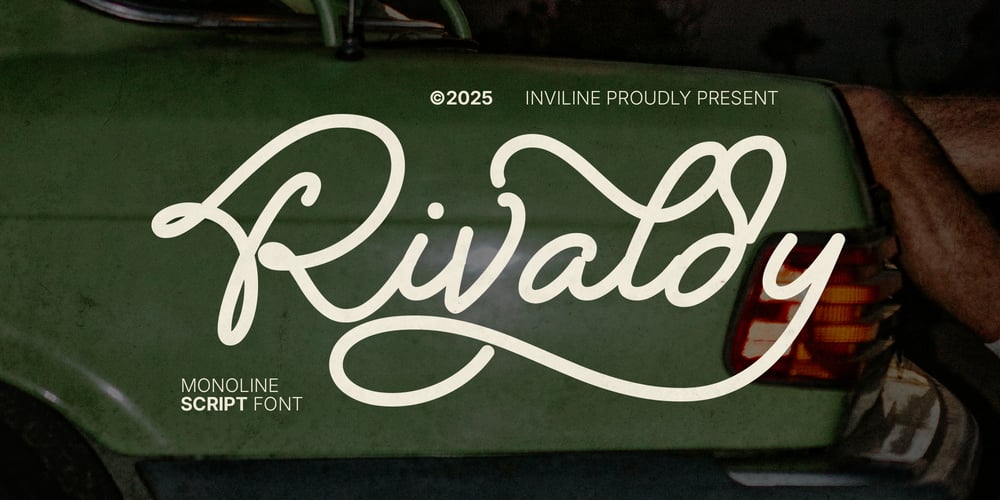
Rivaldy Monoline Script Pro Font Family was designed by Virgiawan Listanto and published by Inviline. Rivaldy Monoline Script Pro contains 1 styles and family package options. Introducing Rivaldy, a stunning Monoline Script Font that combines elegance and modern flair. With its smooth, flowing lines and unique character, Rivaldy is perfect for logos, invitations, and branding. Elevate your designs with the timeless charm of Rivaldy and make a lasting impression!